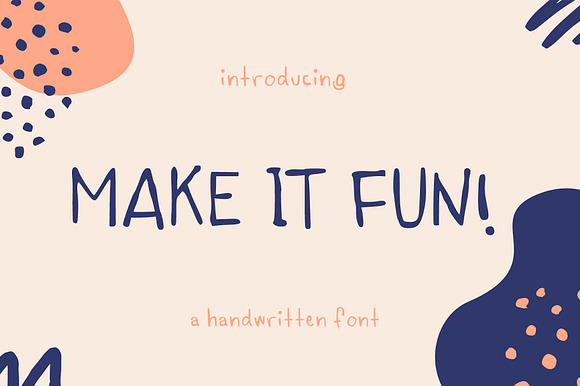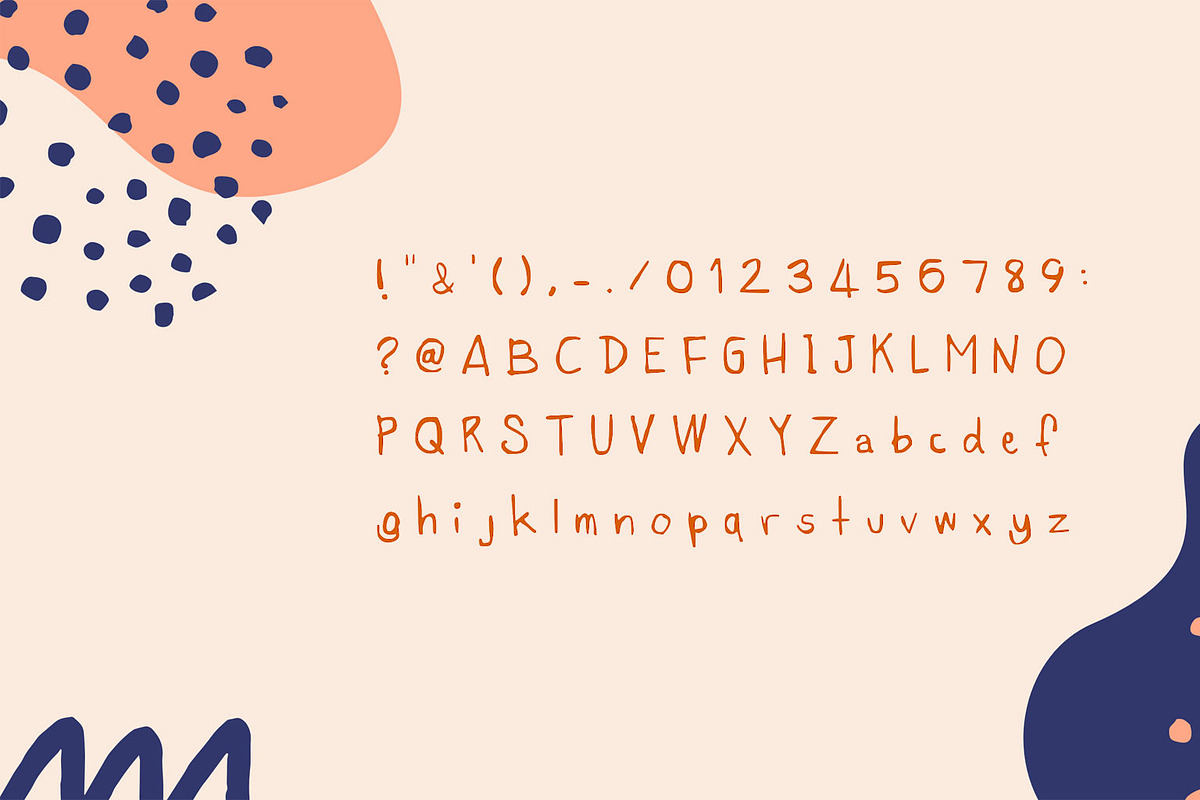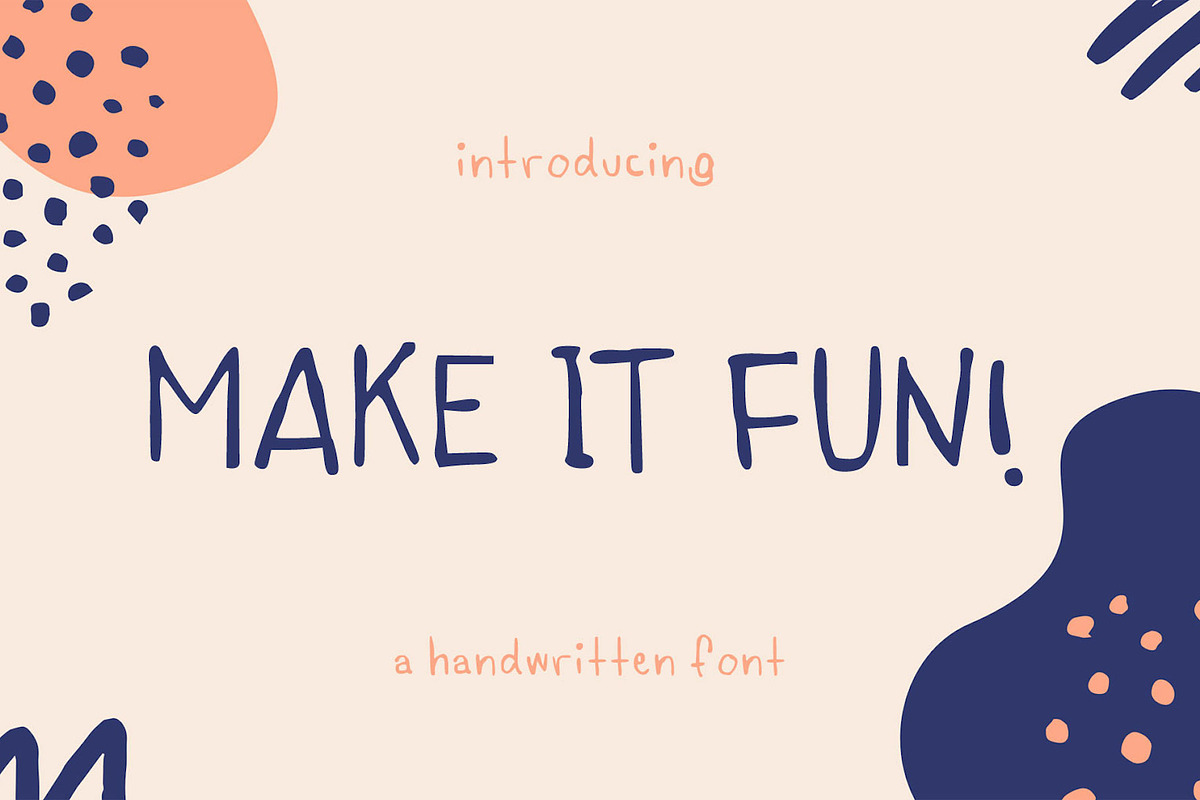
make it fun! handwritten font
Why make it fun! handwritten font is worth a look
make it fun! handwritten font by dxxb studio fits naturally into Branding, posters, packaging, typography.